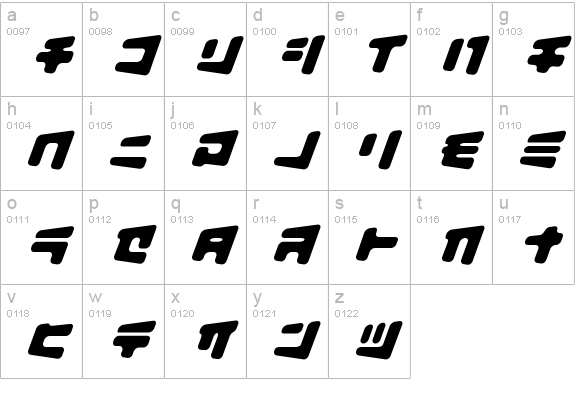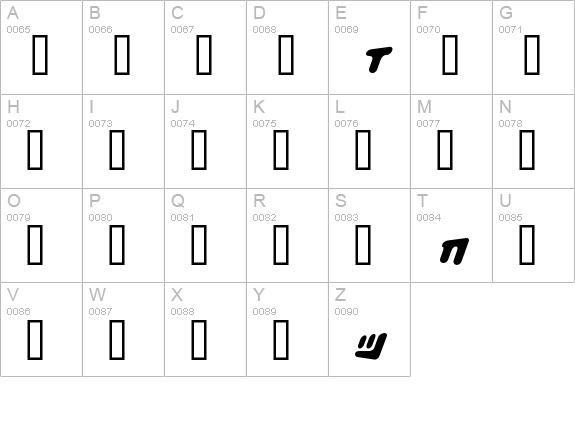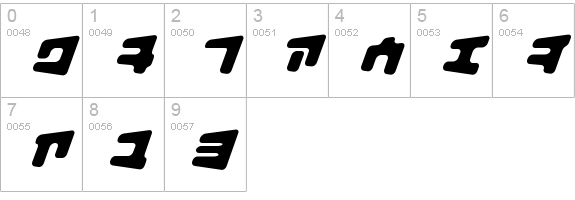
Introducing the stunning and versatile I2Biscuiï¿¿Bank L font, now available for free download at FontsMarket.com. This remarkable typeface embodies elegance, sophistication, and a touch of modernity, making it the perfect choice for a wide range of design projects. I2Biscuiï¿¿Bank L features a clean and crisp letterform, with smooth curves and sharp edges that create a harmonious balance between classic and contemporary design elements. Its stylish and legible characters ensure that your message is conveyed with clarity and impact, whether it's in print or on-screen. This font is designed to be incredibly versatile, making it suitable for various purposes, including branding, logos, headlines, titles, signage, advertising, and much more. With its extensive character set, I2Biscuiï¿¿Bank L provides support for multiple languages, allowing you to create captivating designs for an international audience. What sets I2Biscuiï¿¿Bank L apart is its availability for free download at FontsMarket.com. This means that you can enjoy the benefits of this exceptional font without any cost, making it an invaluable resource for designers, creatives, and enthusiasts alike. With just a few clicks, you can enhance your projects with a touch of sophistication and professionalism, all while staying within your budget. Don't miss the opportunity to elevate your design work with the stunning I2Biscuiï¿¿Bank L font. Download it for free today at FontsMarket.com and unlock a world of possibilities for your next creative endeavor.